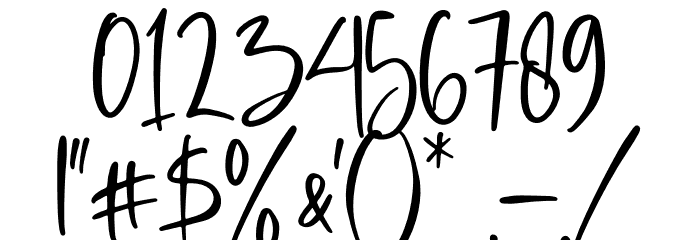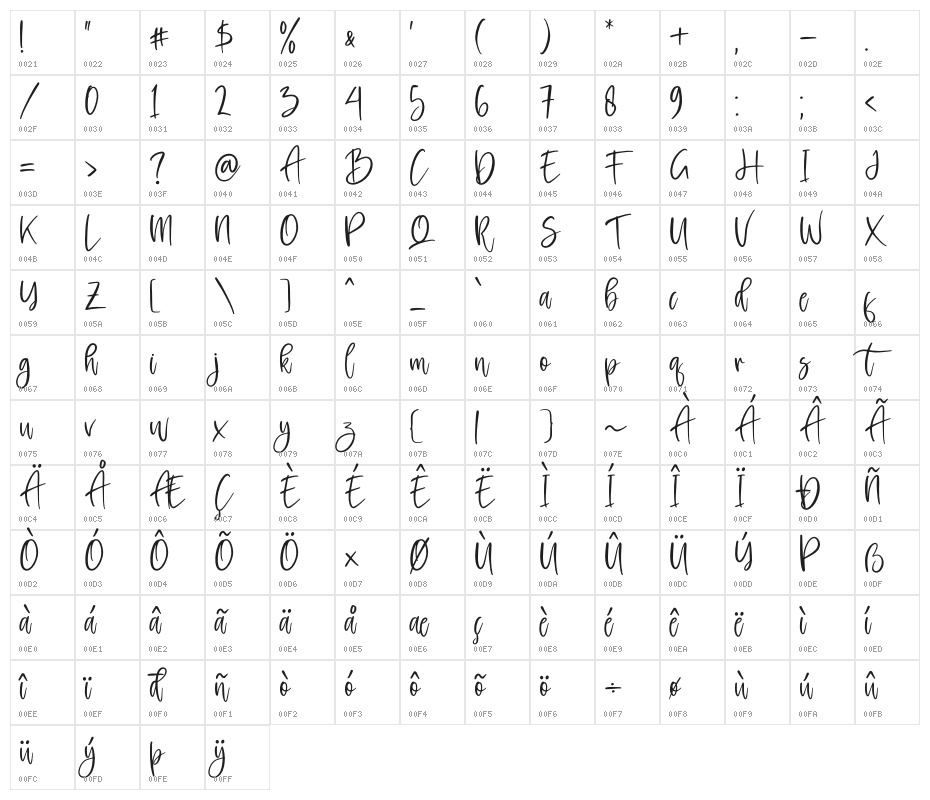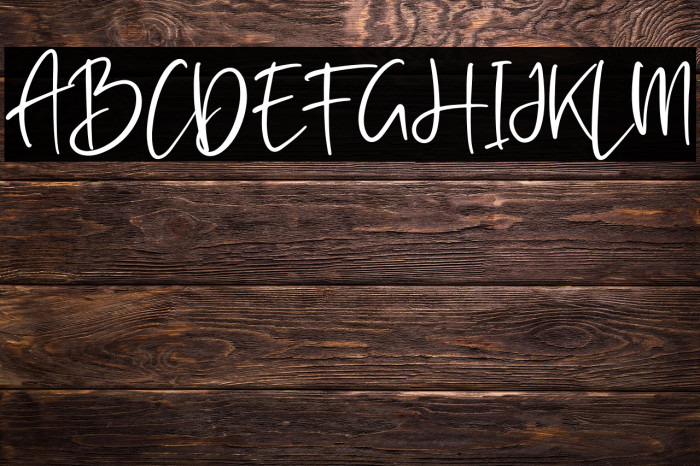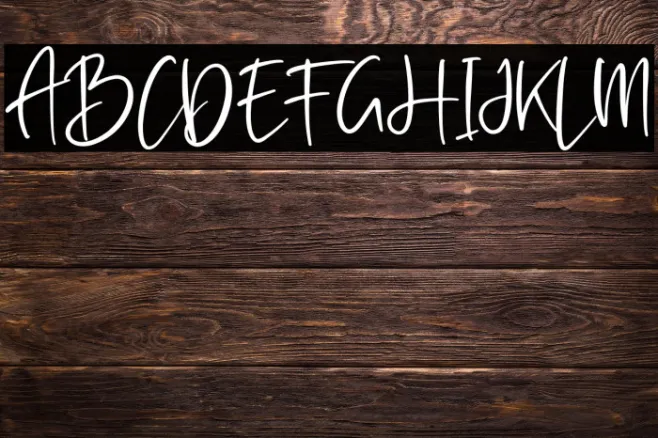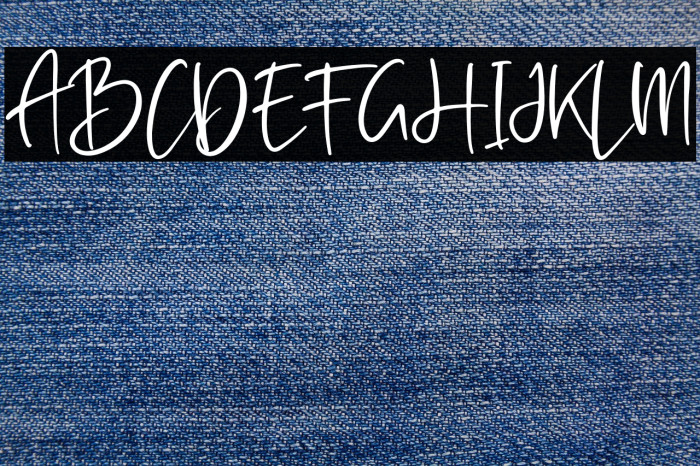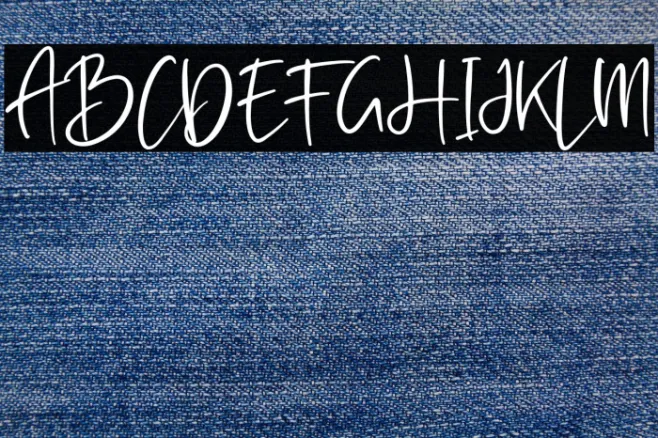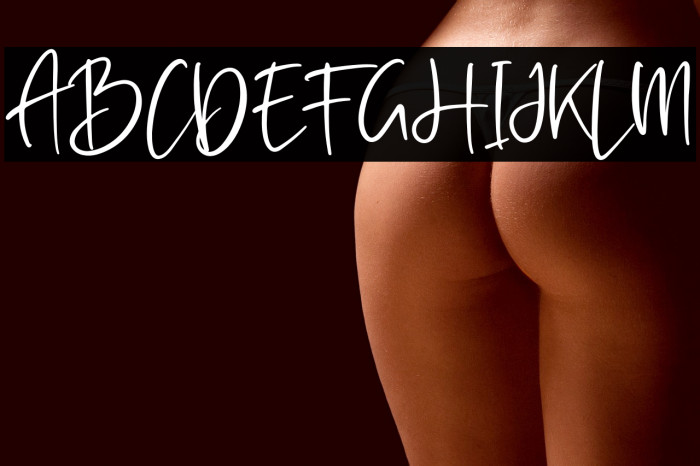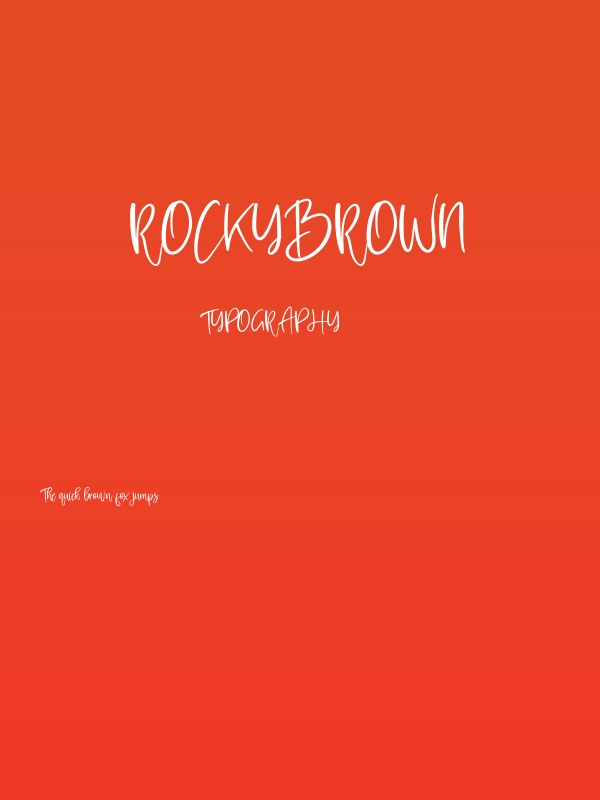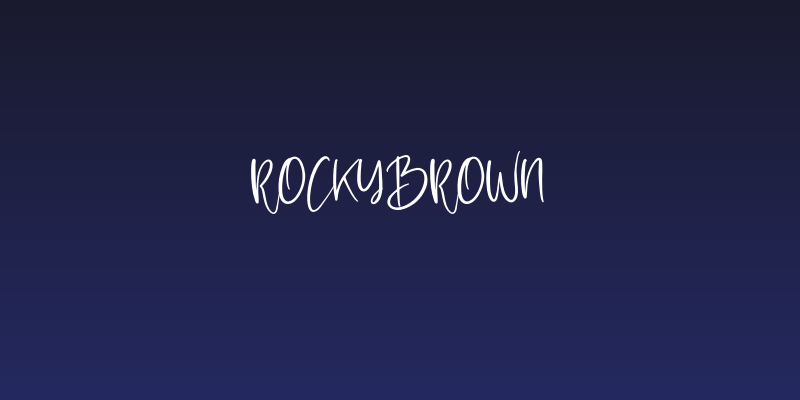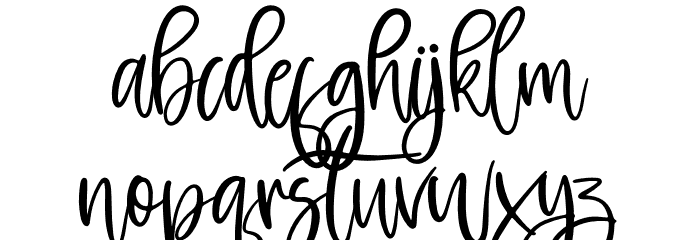
Rockybrown Font
This font features a lively and expressive handwritten style, characterized by its fluid and dynamic strokes. The uppercase letters are bold and slightly slanted, giving a sense of movement and energy. The lowercase letters maintain a consistent flow, with some letters featuring unique loops and curls that add to the font's playful nature. The numerals are distinct and easy to read, with a slight variation in thickness that adds to the overall charm. Special characters are creatively integrated, maintaining the font's whimsical and artistic feel. This font is perfect for projects that require a personal touch or a creative flair.
A lively and expressive handwritten font with dynamic strokes and playful loops.
• Proposed Projects: Ideal for greeting cards, invitations, personal branding, and creative projects that require a personal touch.